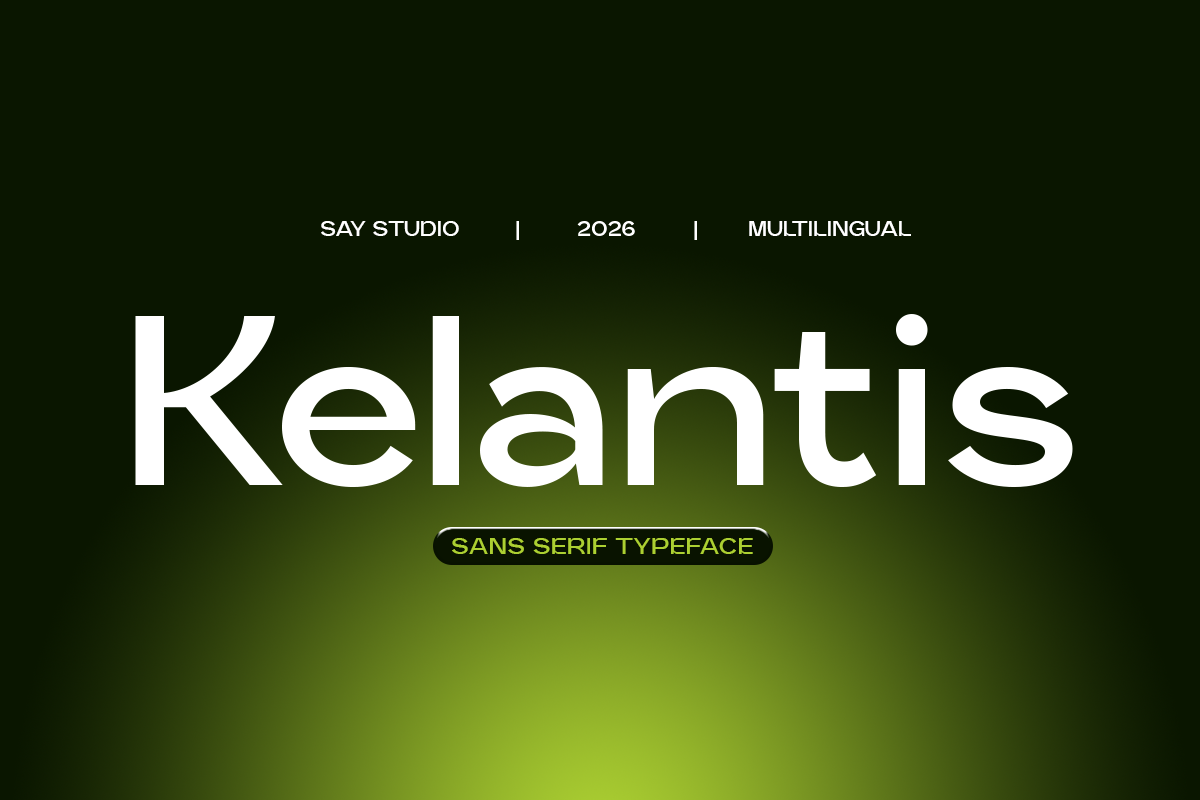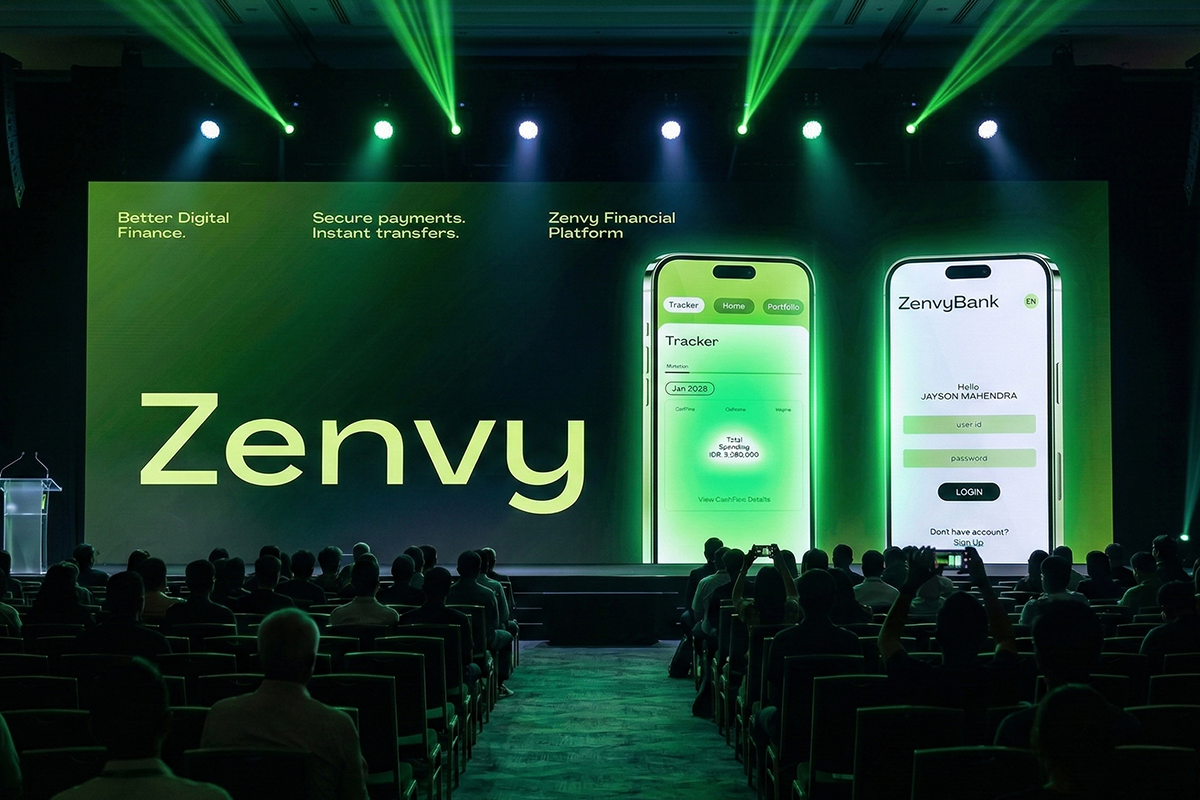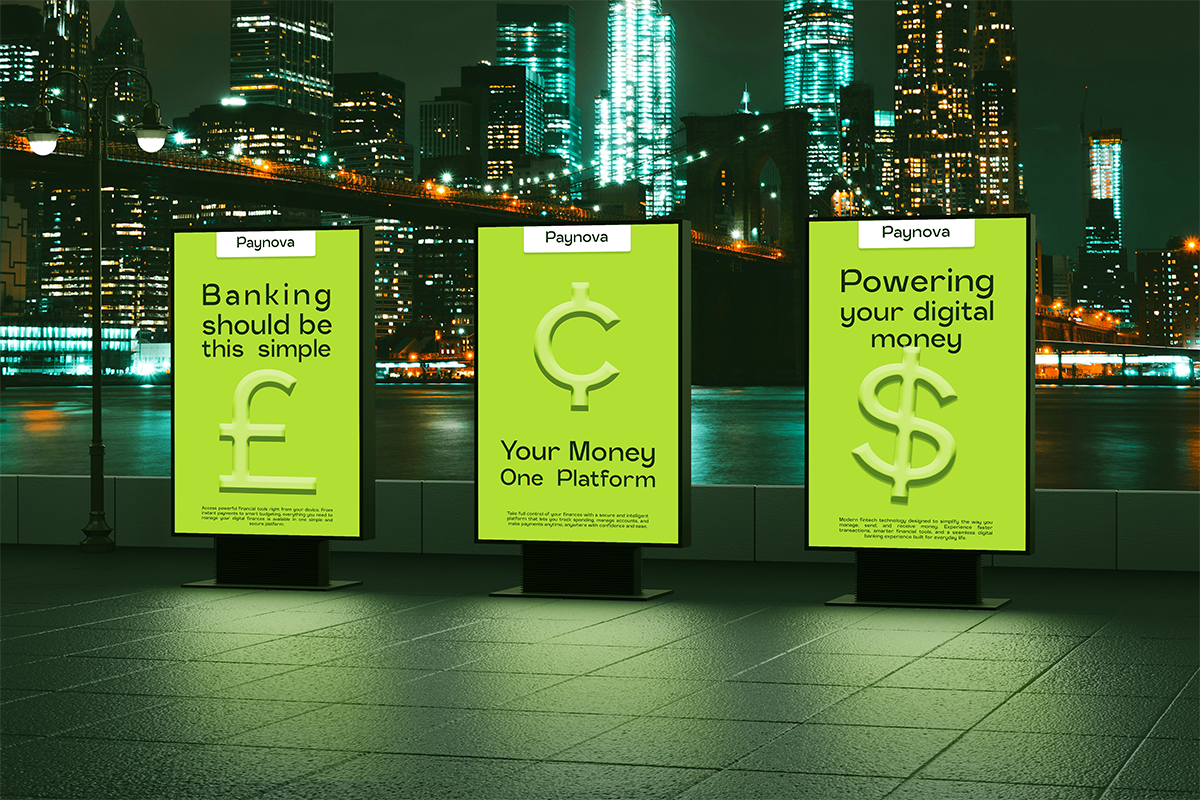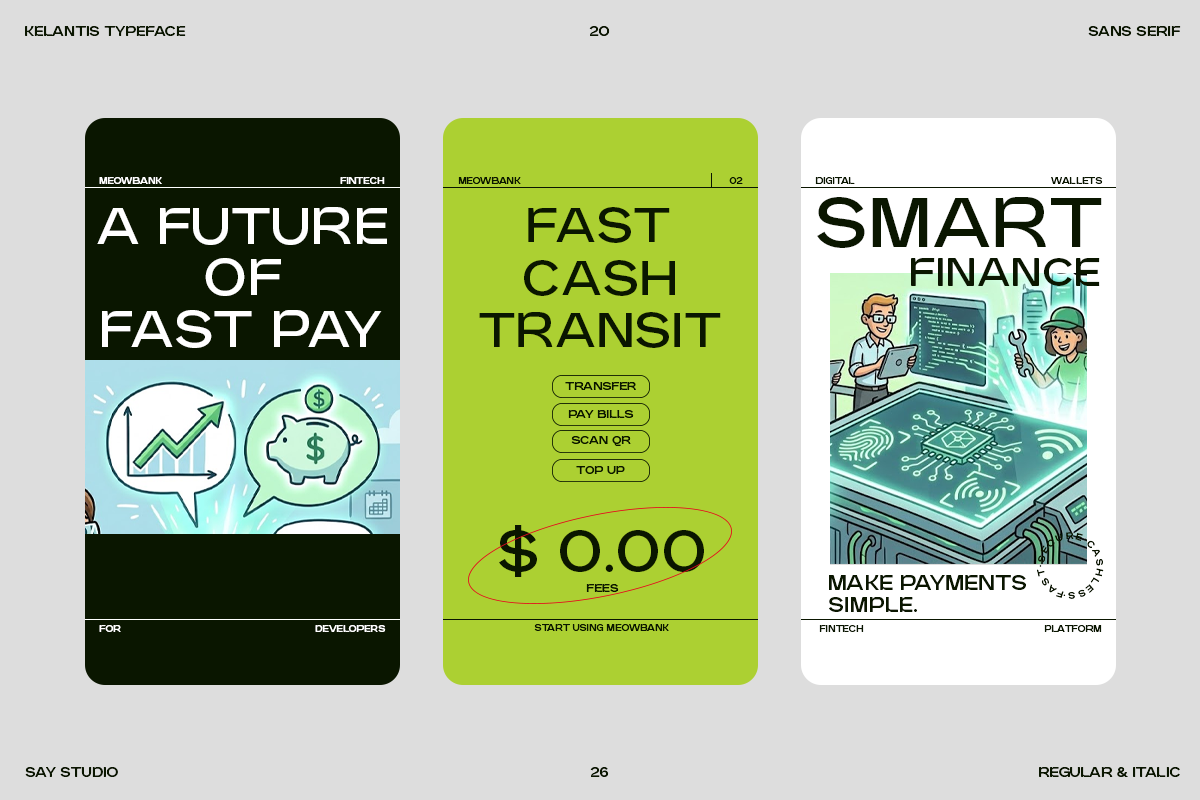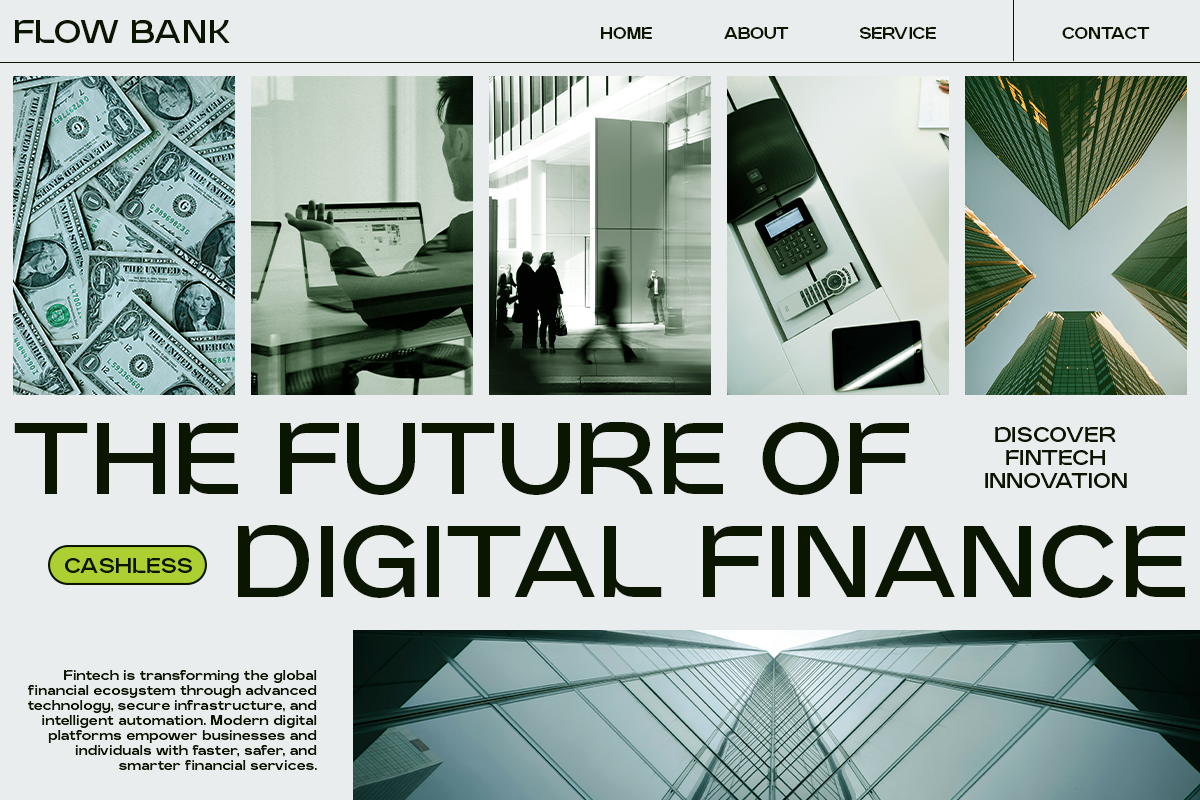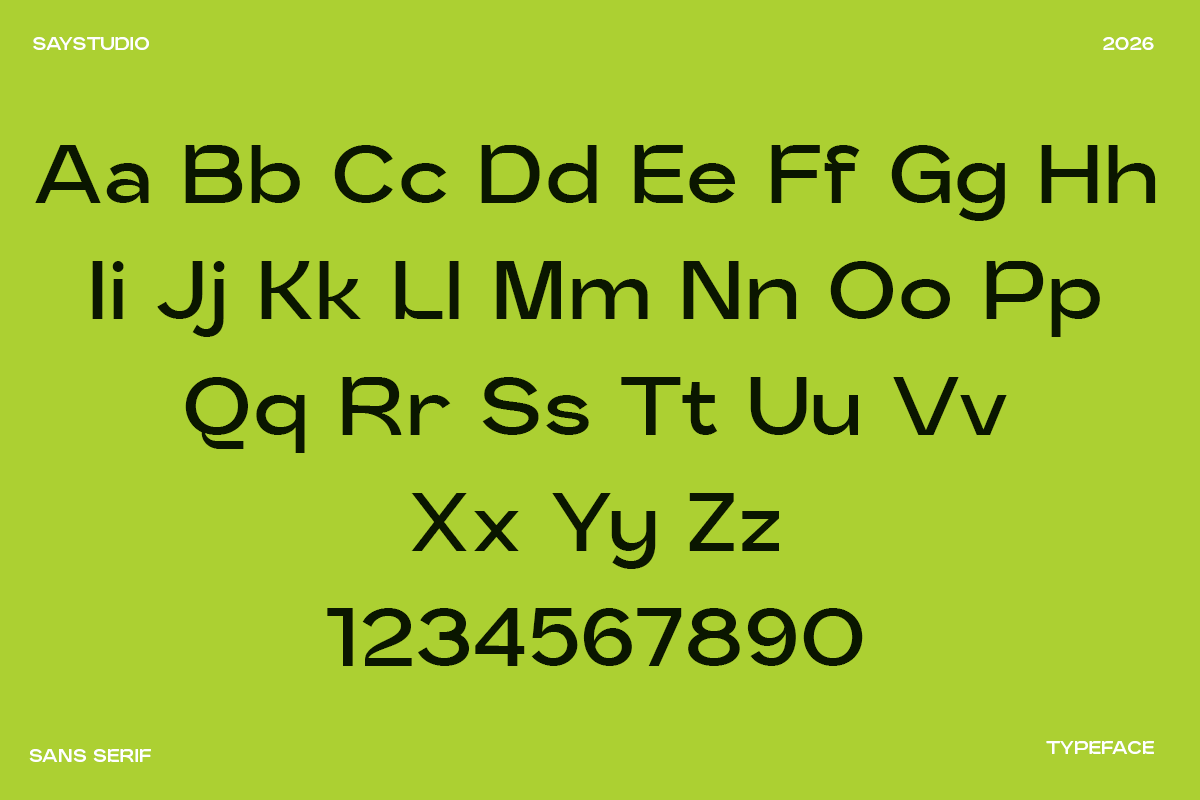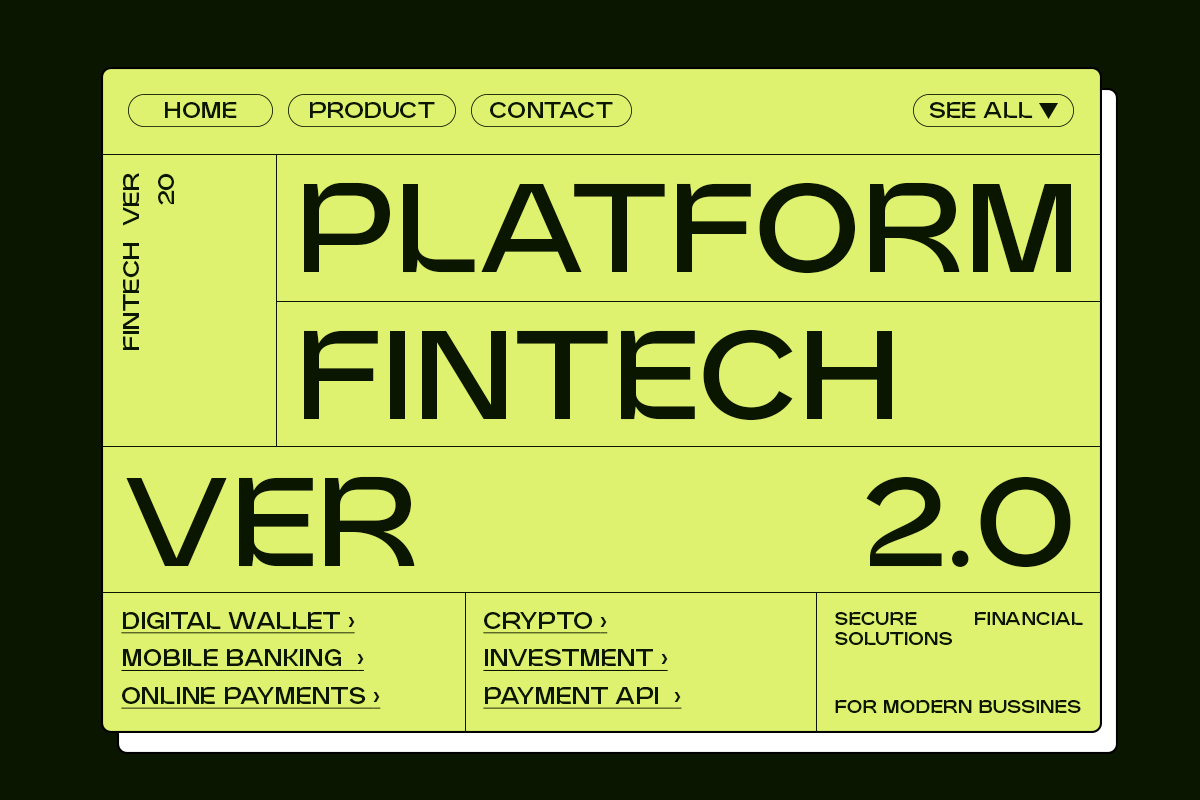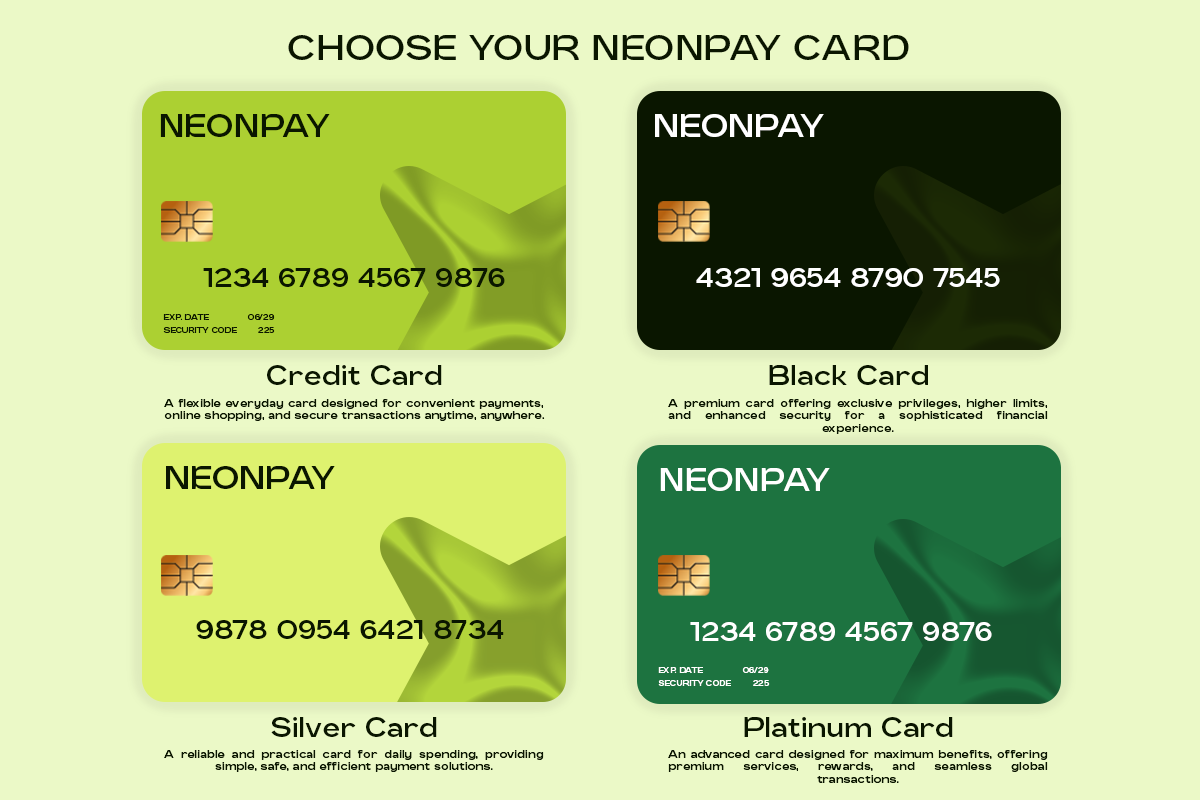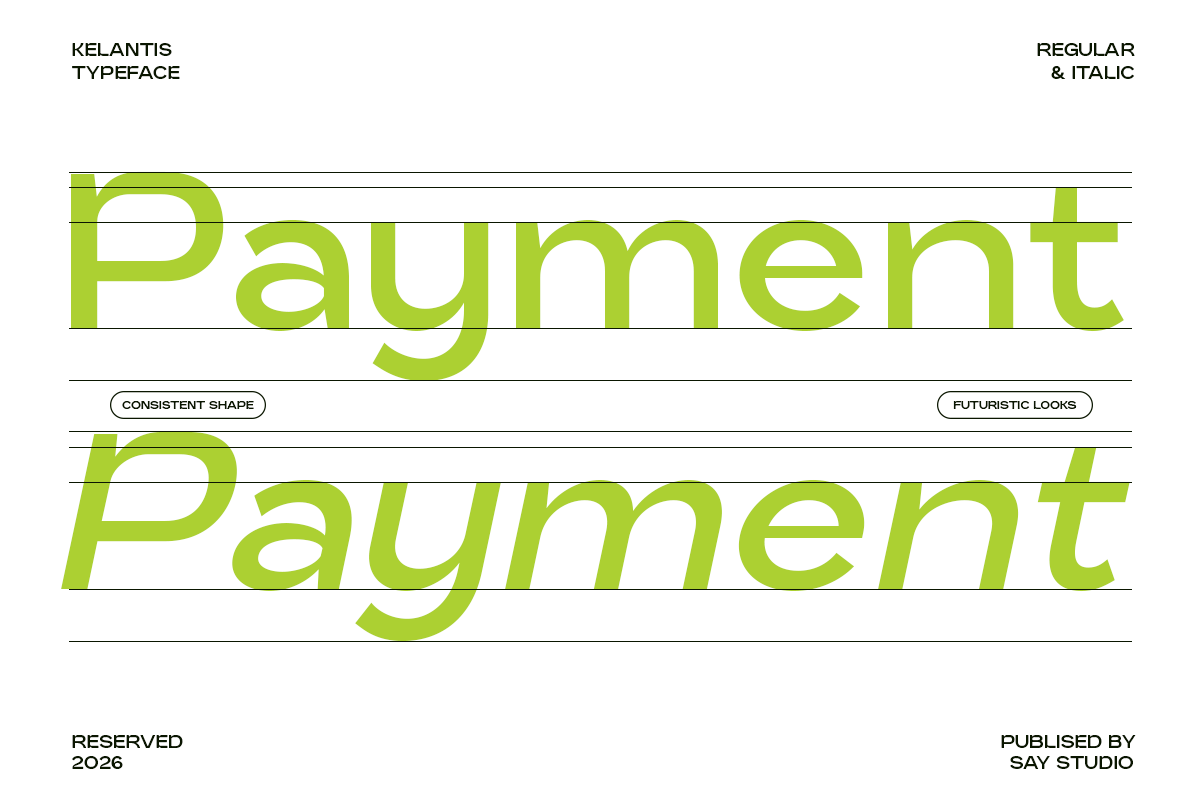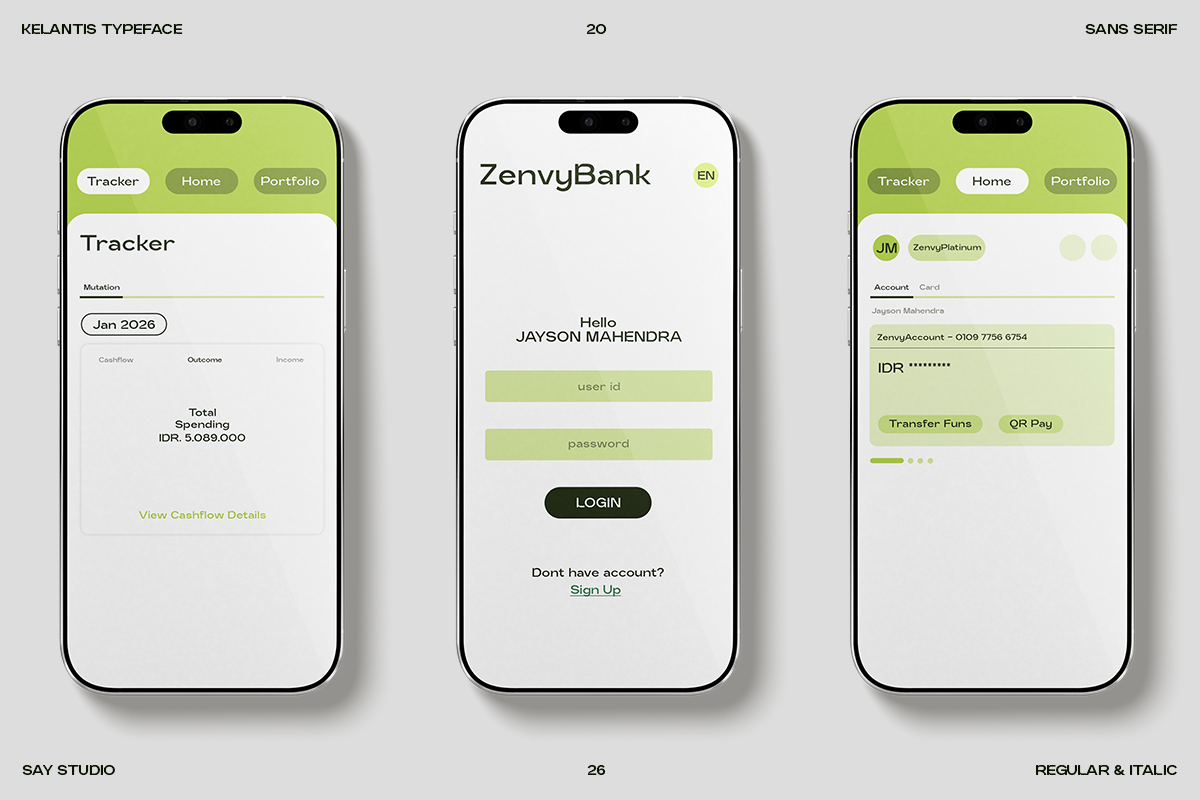
Sans Serif Typeface - Kelantis
Kelantis is a modern sans serif typeface crafted for clarity, simplicity, and contemporary visual impact. Designed with clean lines and balanced proportions, this font delivers a sleek and professional look that fits perfectly into today’s digital and branding landscape. Its minimal structure ensures excellent readability across both large headlines and smaller text applications.
Ideal for branding, UI/UX design, tech startups, websites, logos, and corporate identity, Kelantis offers a versatile typographic solution that adapts seamlessly across various design needs. The modern aesthetic gives your projects a fresh, forward-thinking appearance while maintaining a strong and reliable visual presence.
Whether you're building a digital product, designing a modern brand identity, or creating clean editorial layouts, Kelantis provides the flexibility and style needed to elevate your work. It’s a perfect choice for designers who value simplicity, functionality, and modern design trends.
- Standard Uppercase & Lowercase
- Symbol & Number